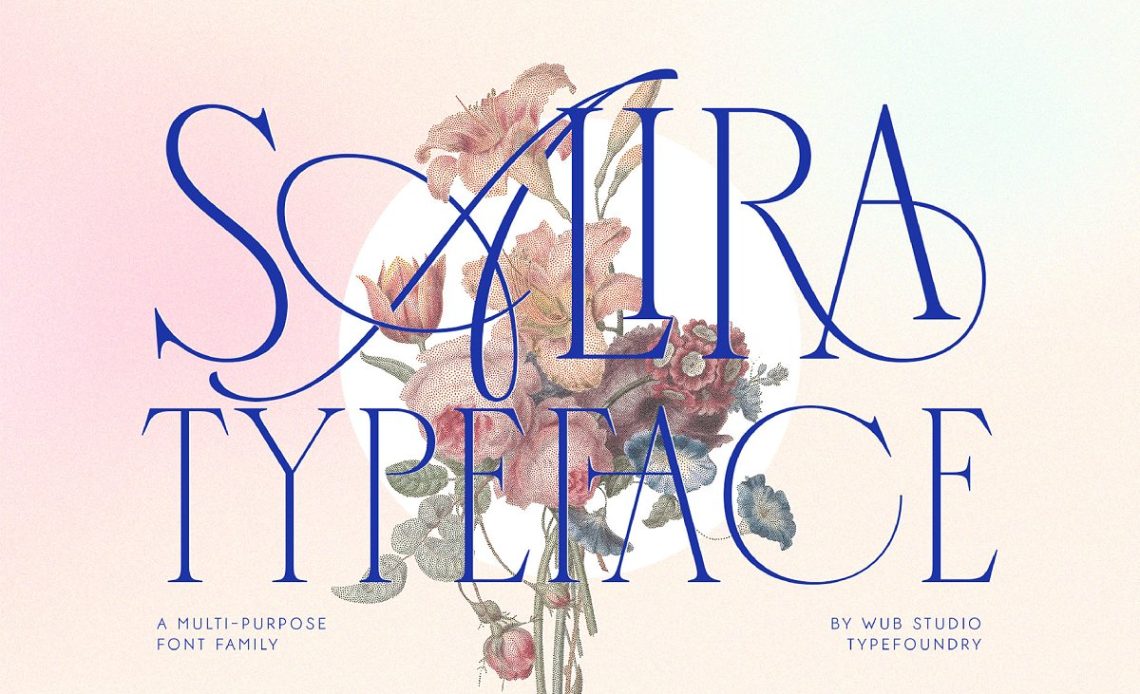
Looking for the best font for your fashion blog? Look no further than Salira Typeface, the latest creation from WUB Studio. This font family is a perfect blend of serif and sans serif fonts, making it a versatile option for any design project.
Salira Typeface is not your typical font duo. Its unique combination of script and serif creates a multi-purpose font that stands out from the crowd. The design is both elegant and modern, making it perfect for fashion bloggers who want to elevate their brand image.
One of the best things about Salira Typeface is its ligatures. With many ligatures found in serif fonts, this font family is perfect for creating initial logos that truly stand out. It's easy to create an eye-catching logo with Salira Typeface, which will help your fashion blog to really shine.
In summary, Salira Typeface is the best font for fashion bloggers who want to take their blog to the next level. With its unique blend of serif and sans serif fonts, this font family is perfect for creating elegant and modern designs. Plus, its ligatures make it easy to create an initial logo that truly stands out. So what are you waiting for? Start creating amazing designs with Salira Typeface today!